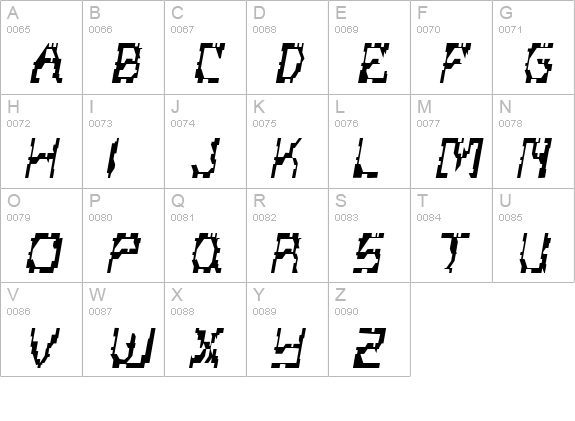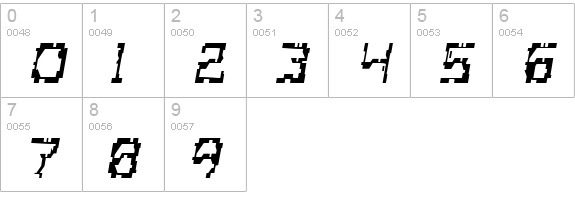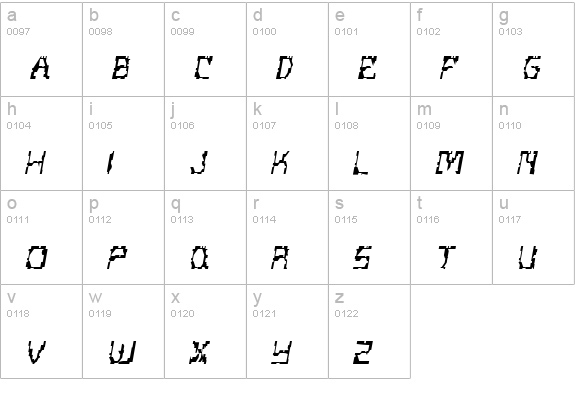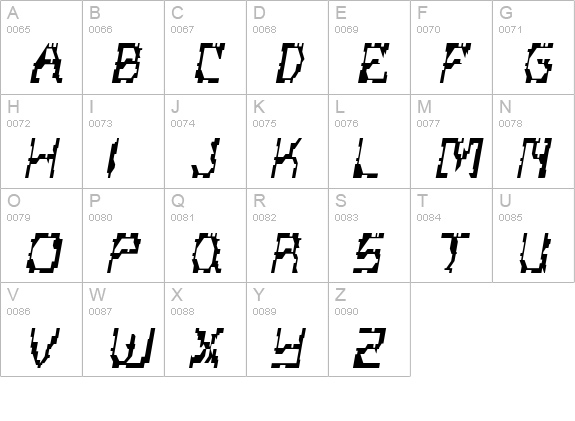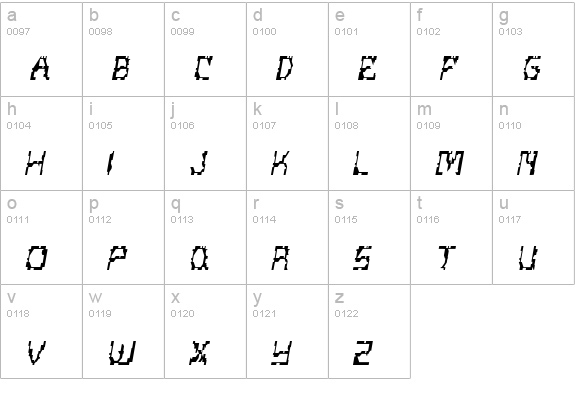
Scritzy Regular Font Details
Scritzy Regular is the standard, neutral variant in the Scritzy typeface family \xE2\x80\x94 well suited to general body text, paragraphs, and standard typographic work.
Introducing Scritzy Regular, a captivating and versatile font that effortlessly blends elegance with a touch of playfulness. This font is a true gem for designers seeking to infuse their projects with a unique and eye-catching aesthetic. Scritzy Regular boasts a perfect balance between clean lines and charming quirks, making it the ideal choice for a wide range of design applications. Whether you're designing a logo, crafting a headline, or creating a captivating poster, this font will undoubtedly capture attention and leave a lasting impression. One of the most remarkable aspects of Scritzy Regular is its versatility. It seamlessly adapts to various design styles and contexts, effortlessly enhancing the visual appeal of any project. Its timeless charm and distinct personality make it an excellent choice for both modern and classic designs. And the best part? Scritzy Regular is available for free! Yes, you heard it right. You can freely download this font at FontsMarket.com, a trusted source for high-quality and diverse fonts. With just a few clicks, you can add this remarkable typeface to your font library, ready to unleash its creative potential whenever inspiration strikes. Scritzy Regular is designed with utmost attention to detail, ensuring flawless legibility and impeccable spacing. Its carefully crafted letterforms guarantee a smooth reading experience while maintaining an undeniable wow factor. So, whether you're a professional designer or a creative enthusiast, don't miss the opportunity to elevate your projects with Scritzy Regular. Download it for free at FontsMarket.com and unlock a world of endless typographic possibilities. Let Scritzy Regular be the perfect companion for your next design adventure, leaving a lasting impression with its captivating charm.